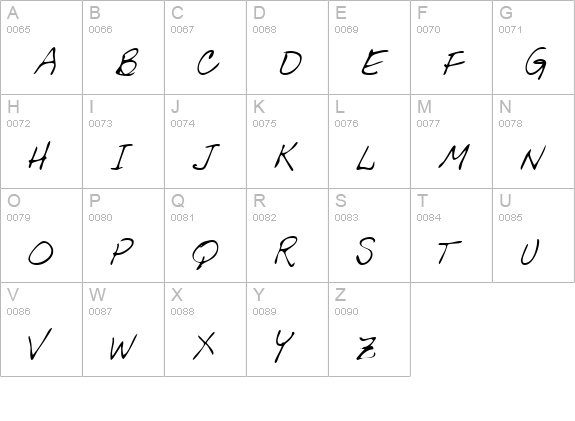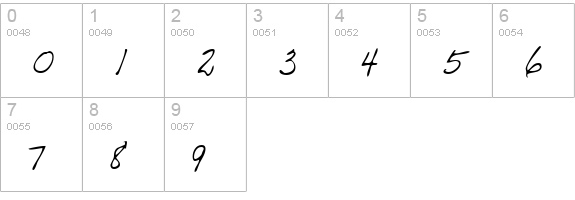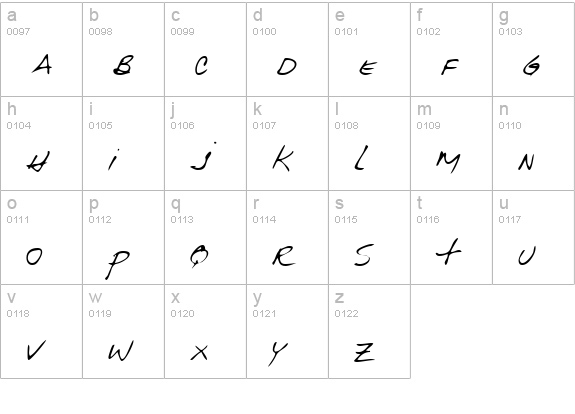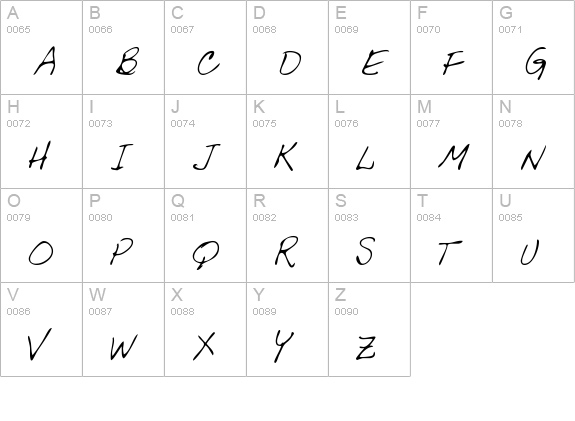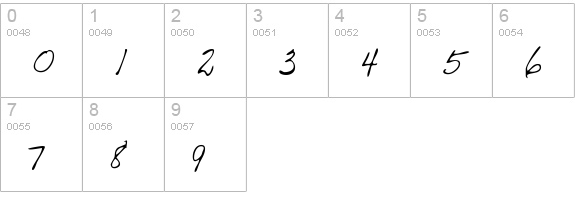
EwingsHand Regular Font Details
EwingsHand Regular is the standard, neutral variant in the EwingsHand typeface family \xE2\x80\x94 well suited to general body text, paragraphs, and standard typographic work.
EwingsHand Regular font is a charming and versatile typeface that exudes elegance and sophistication. With its smooth lines and graceful curves, this font is perfect for adding a touch of class to any design project. Whether you're working on invitations, logos, or branding materials, EwingsHand Regular font will elevate your work to the next level. The best part? EwingsHand Regular font is completely free to download at FontsMarket.com. Simply visit the website and start using this beautiful font in your projects today. Don't miss out on the opportunity to enhance your designs with this stunning typeface that is both timeless and contemporary. Download EwingsHand Regular font now and let your creativity shine.